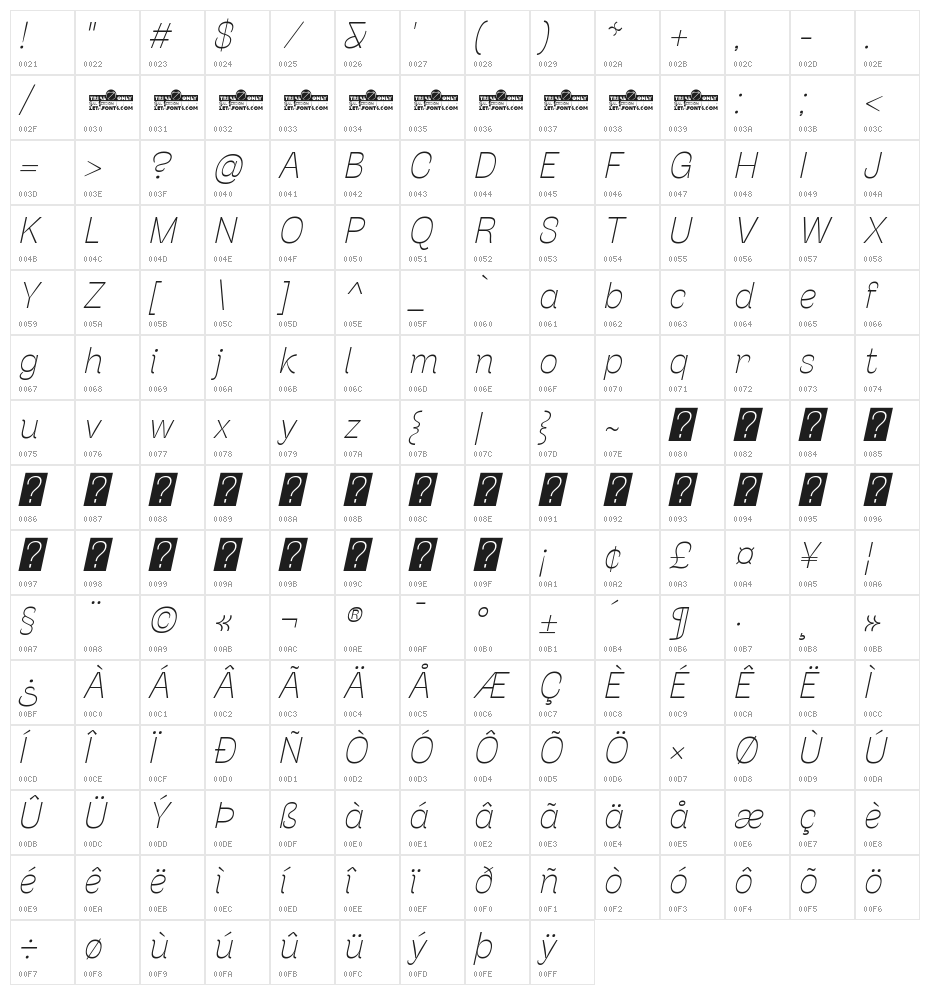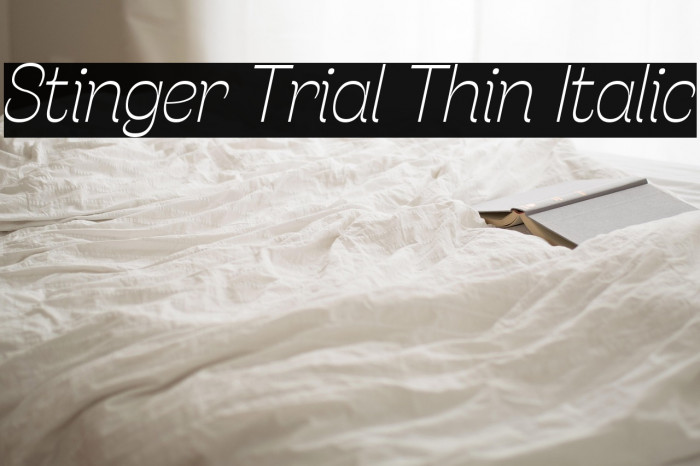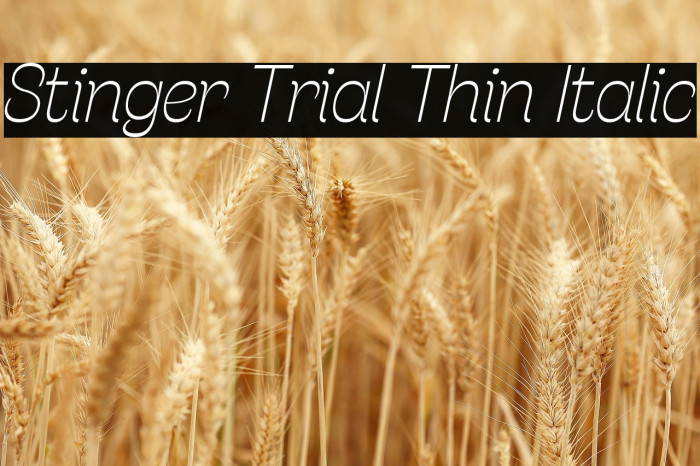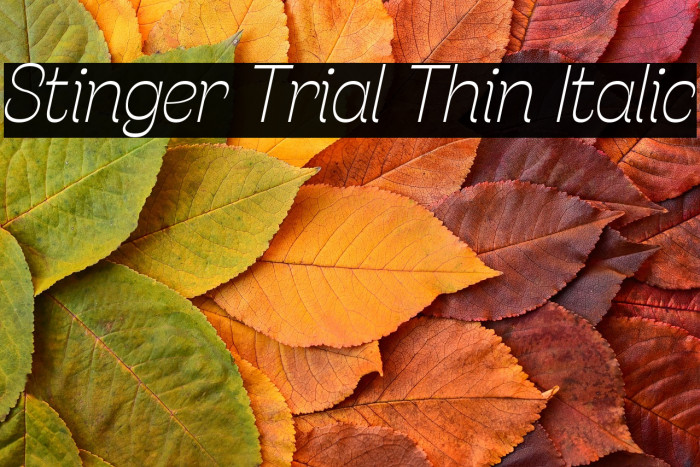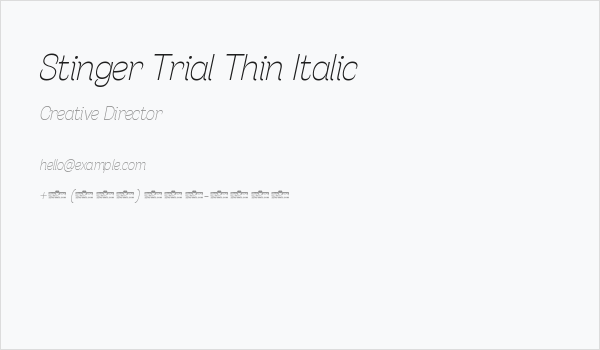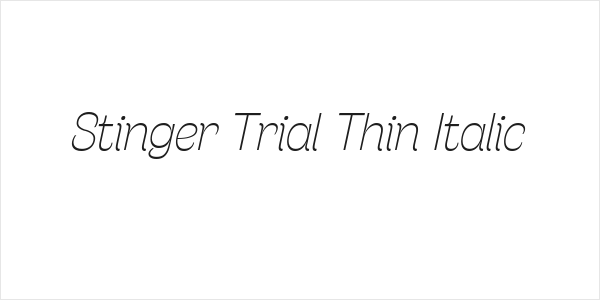
Stinger Trial Thin Italic Font
Stinger Trial Thin Italic Description
This font features a sleek and elegant design with a thin, italicized style. The characters are slightly slanted, giving a sense of motion and fluidity. The strokes are consistent and delicate, with a modern and sophisticated appearance. The uppercase and lowercase letters maintain a uniform height, enhancing readability. The numerals and special characters are designed to complement the alphabet, maintaining the same thin and graceful aesthetic. This font is ideal for projects that require a touch of elegance and modernity.
| Proposed Projects | Ideal for fashion magazines, luxury branding, elegant invitations, and modern web design. |